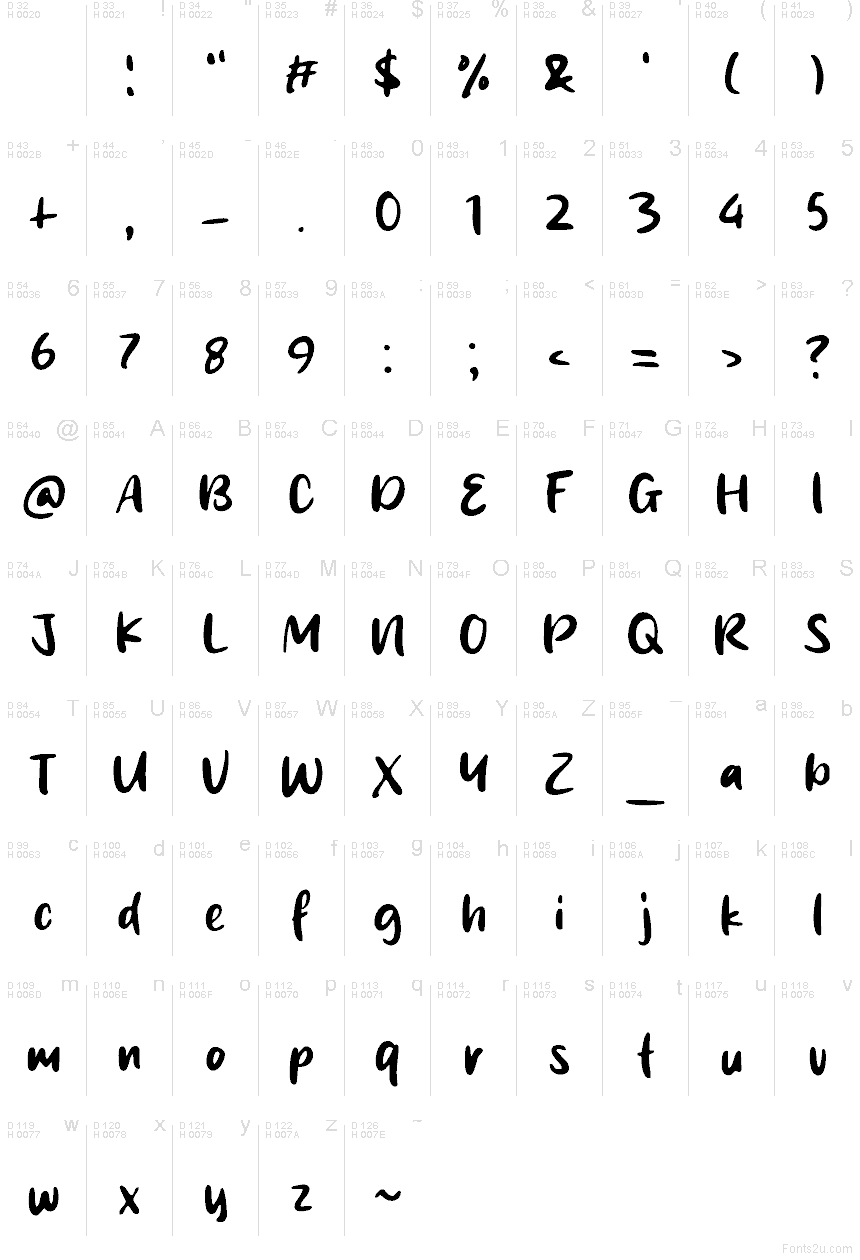
Crative Think, by Origin Type, is a free brush font with the loose confidence of quick, ink-loaded lettering. Its broad, rounded strokes shift into sharp flicks and narrow joins, giving words an informal rhythm that feels handwritten rather than carefully drawn.
This free font suits casual branding, event posters, food packaging, social graphics, cover lines, and title cards. It works best where copy stays brief, since the swelling strokes and abrupt tapered turns bring plenty of movement to a short name or phrase.